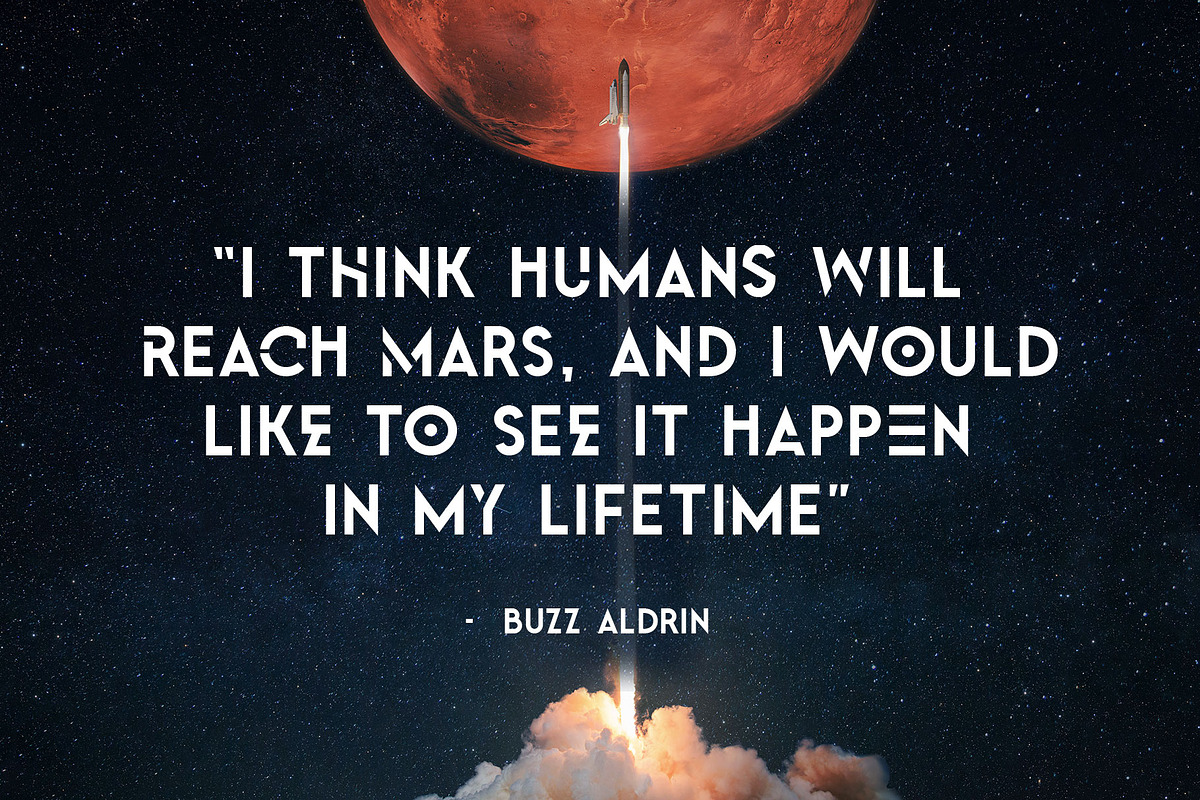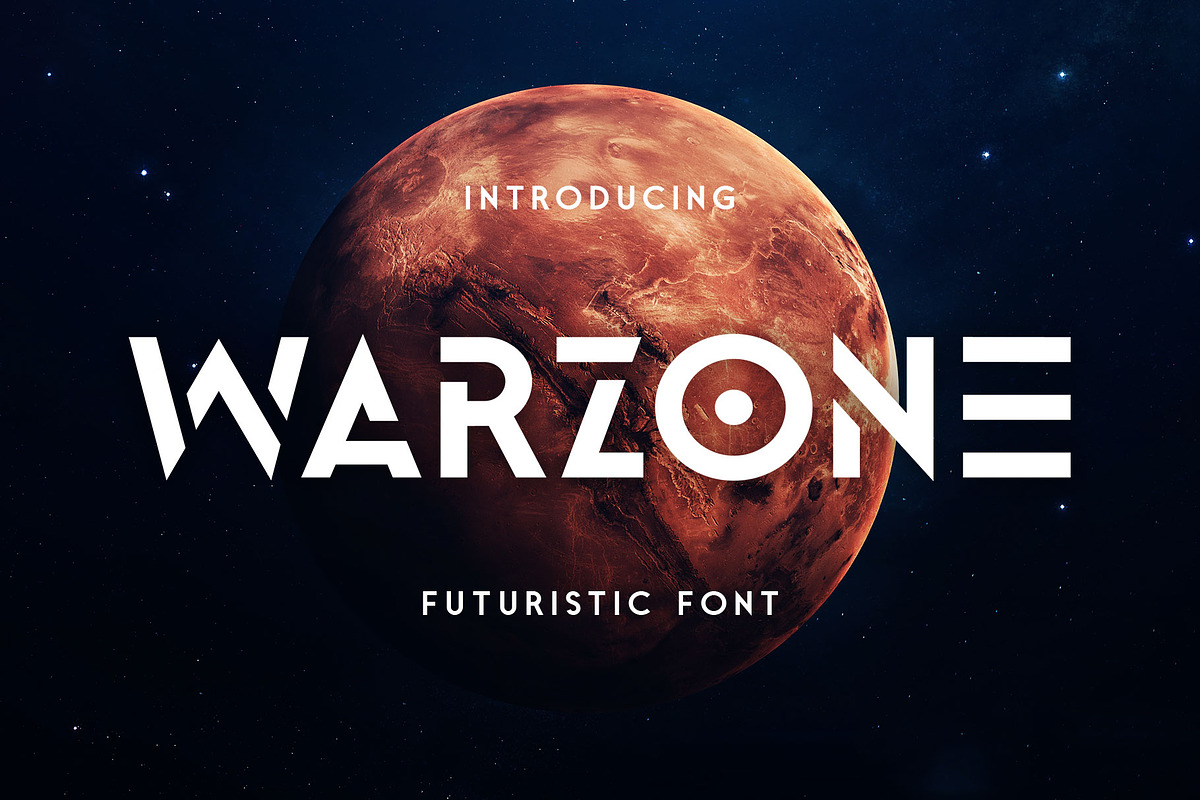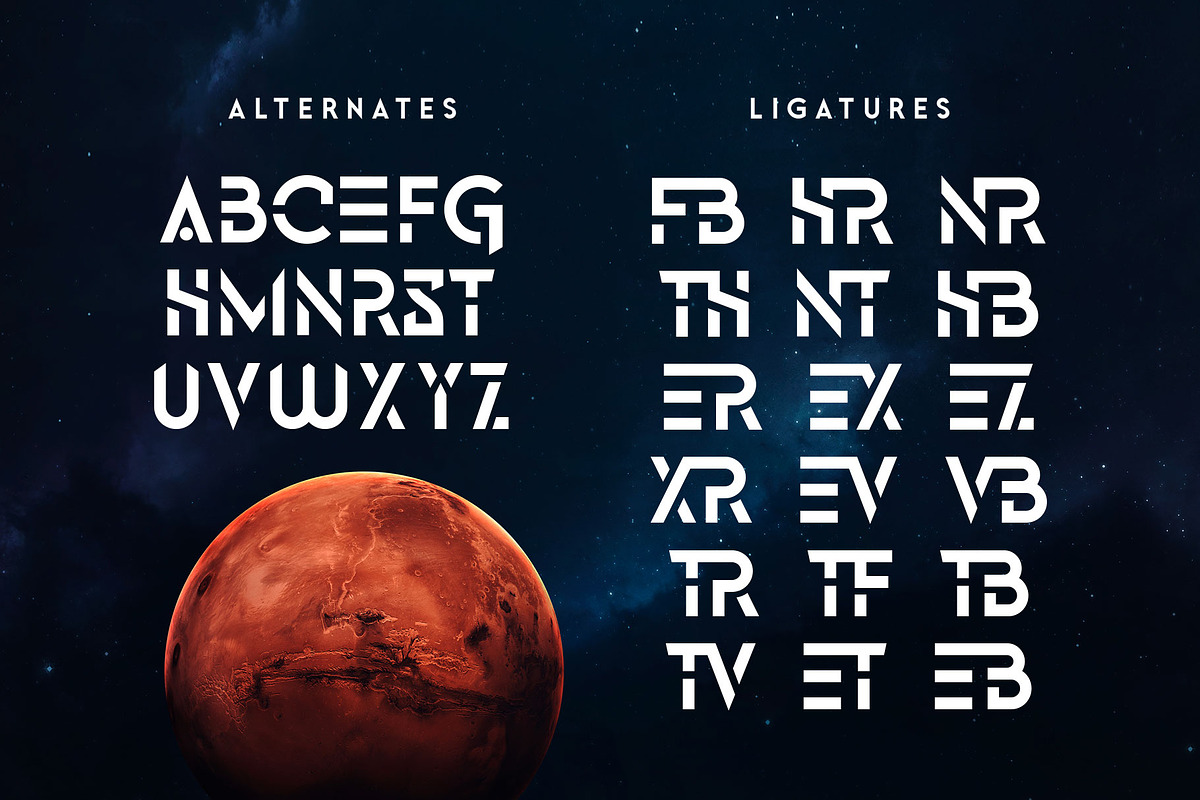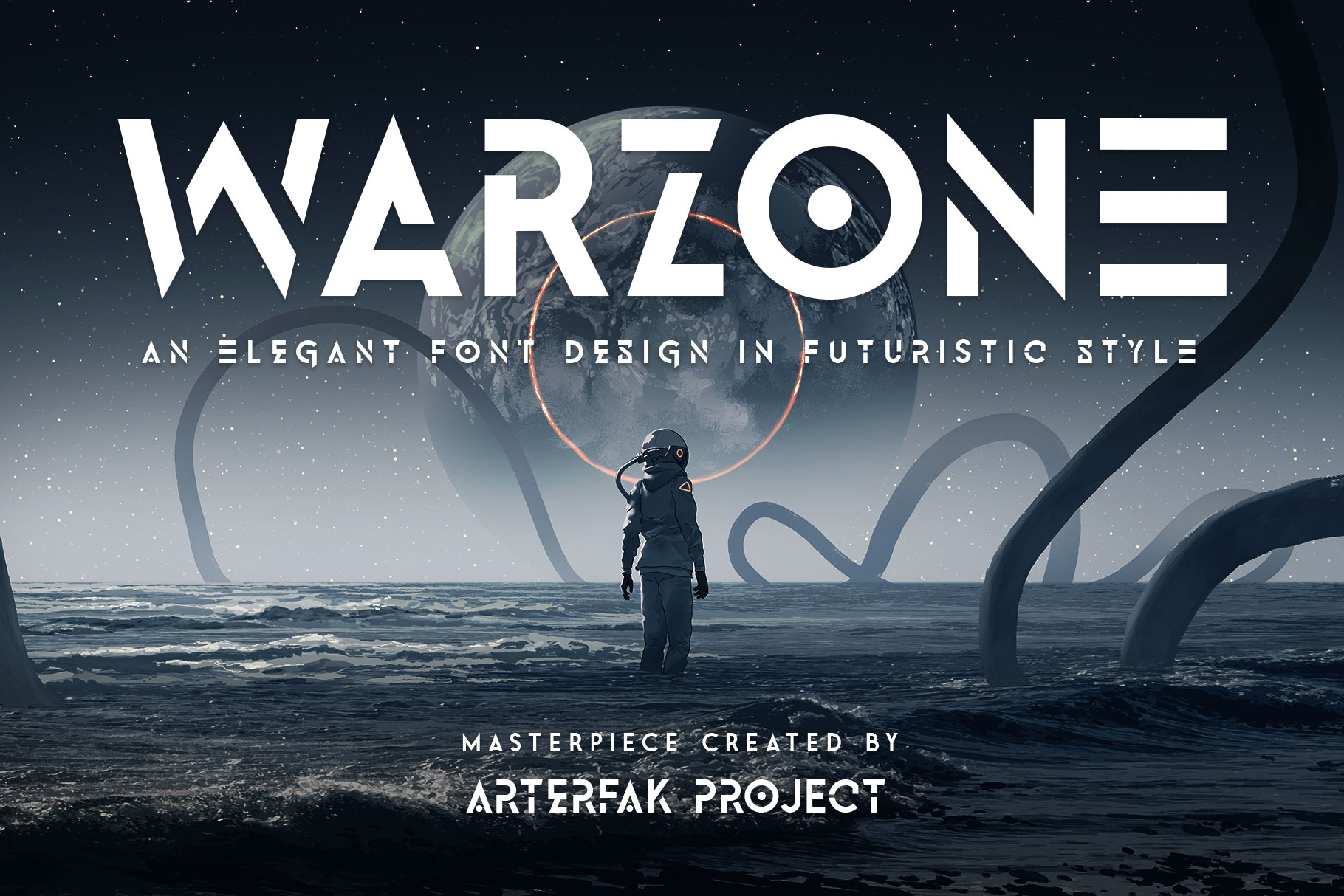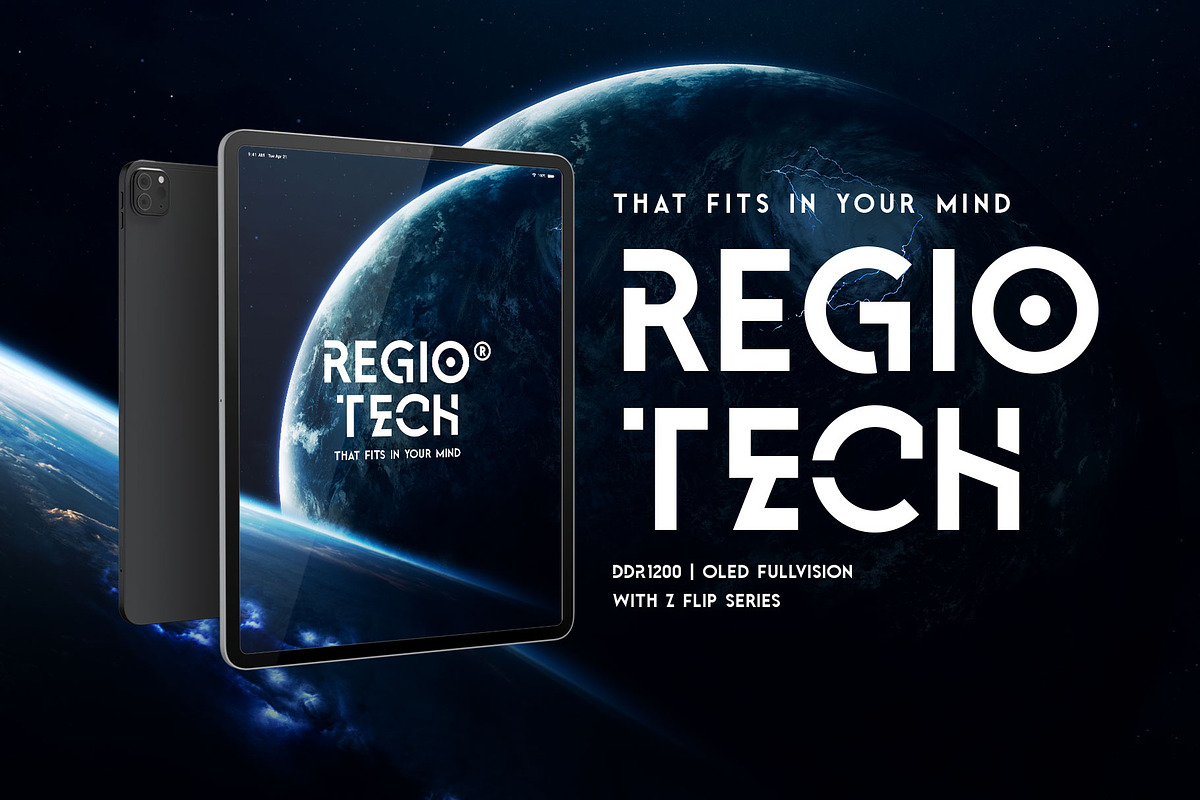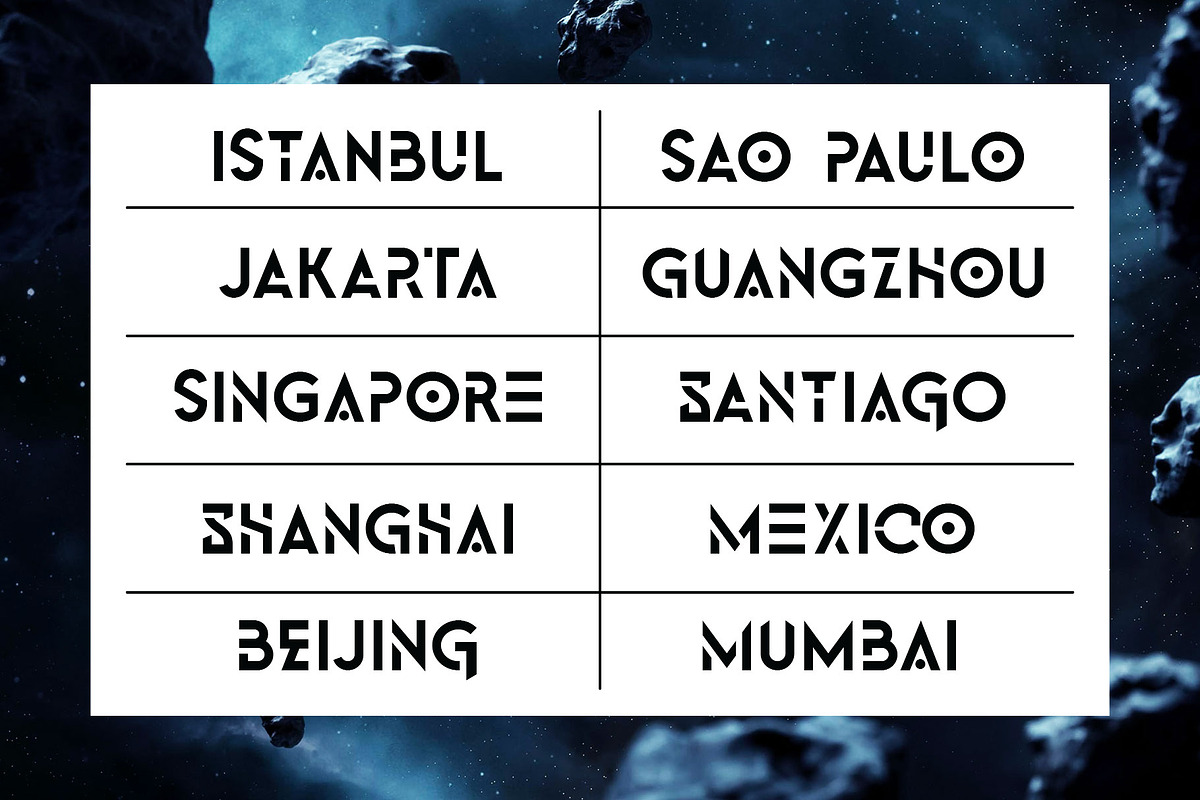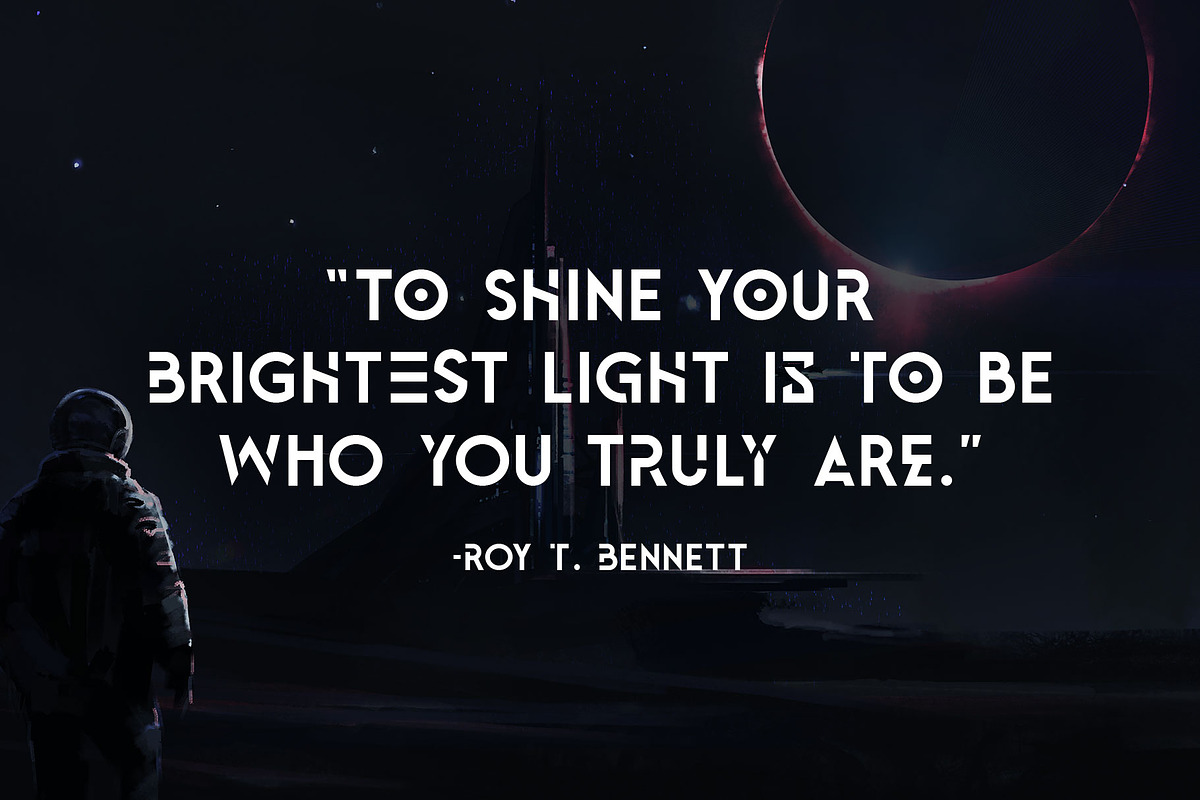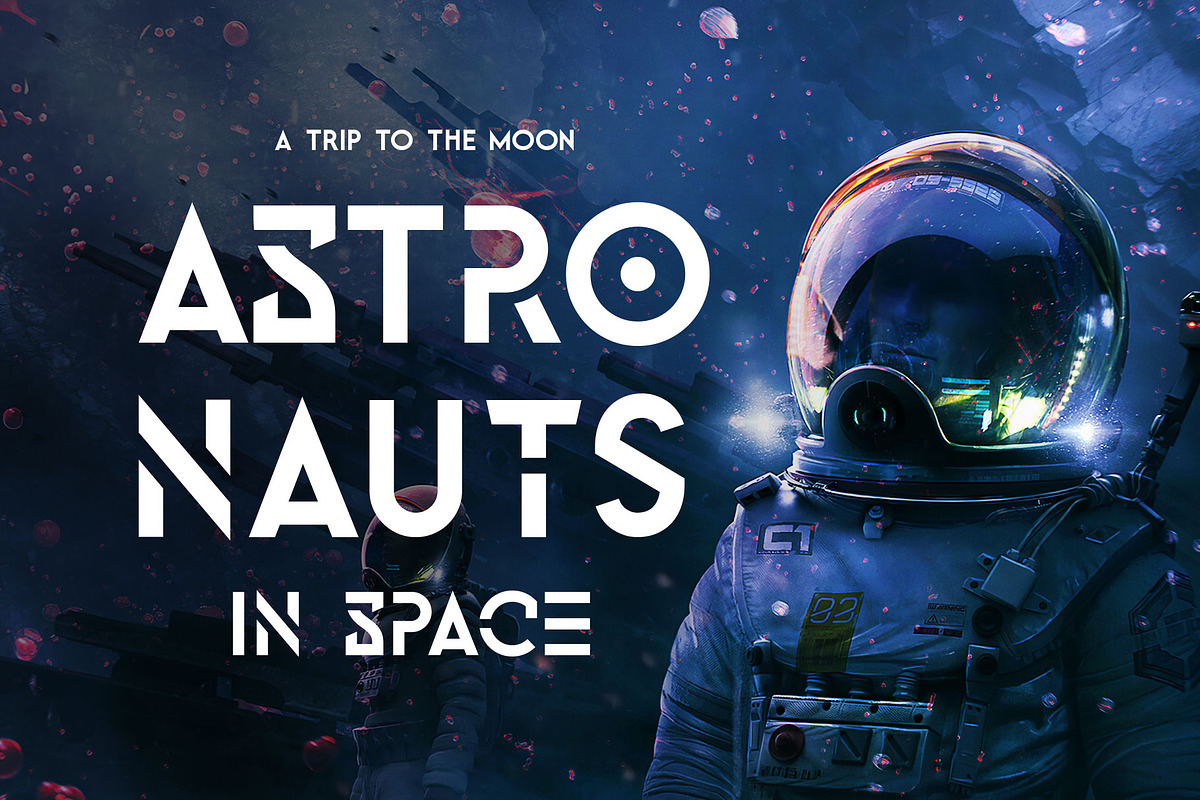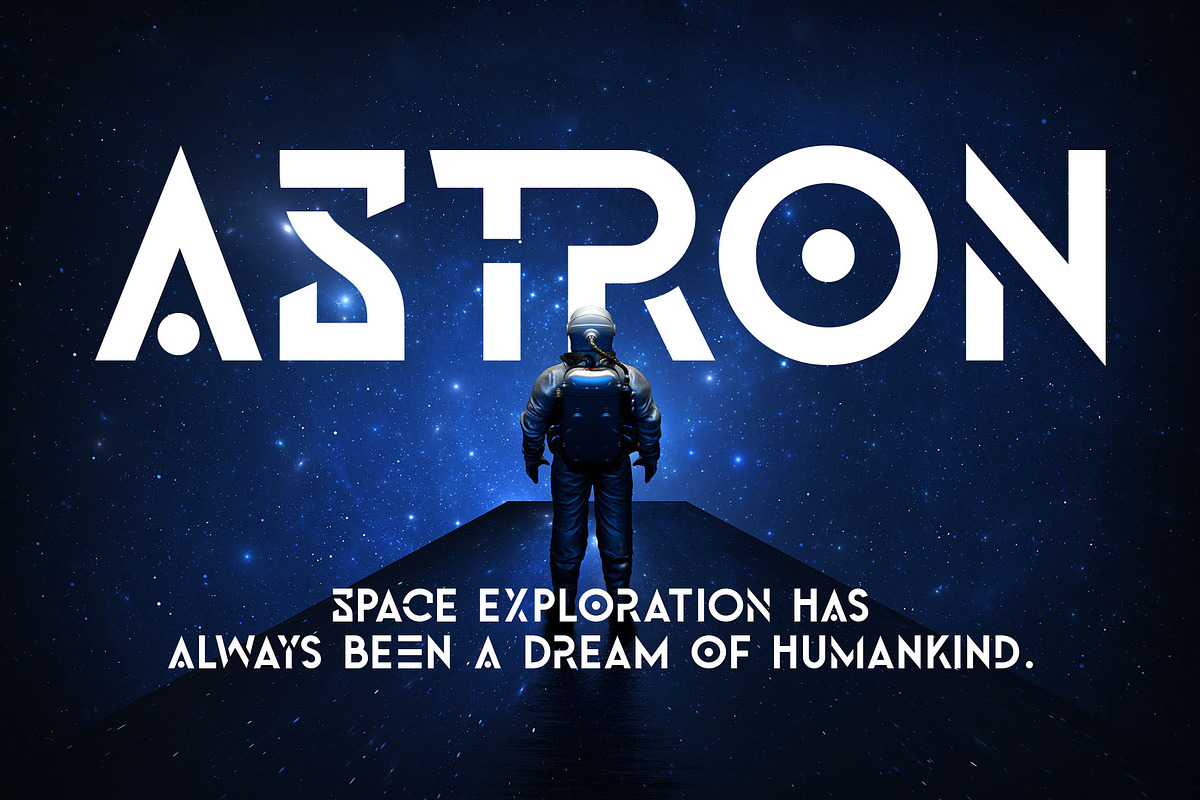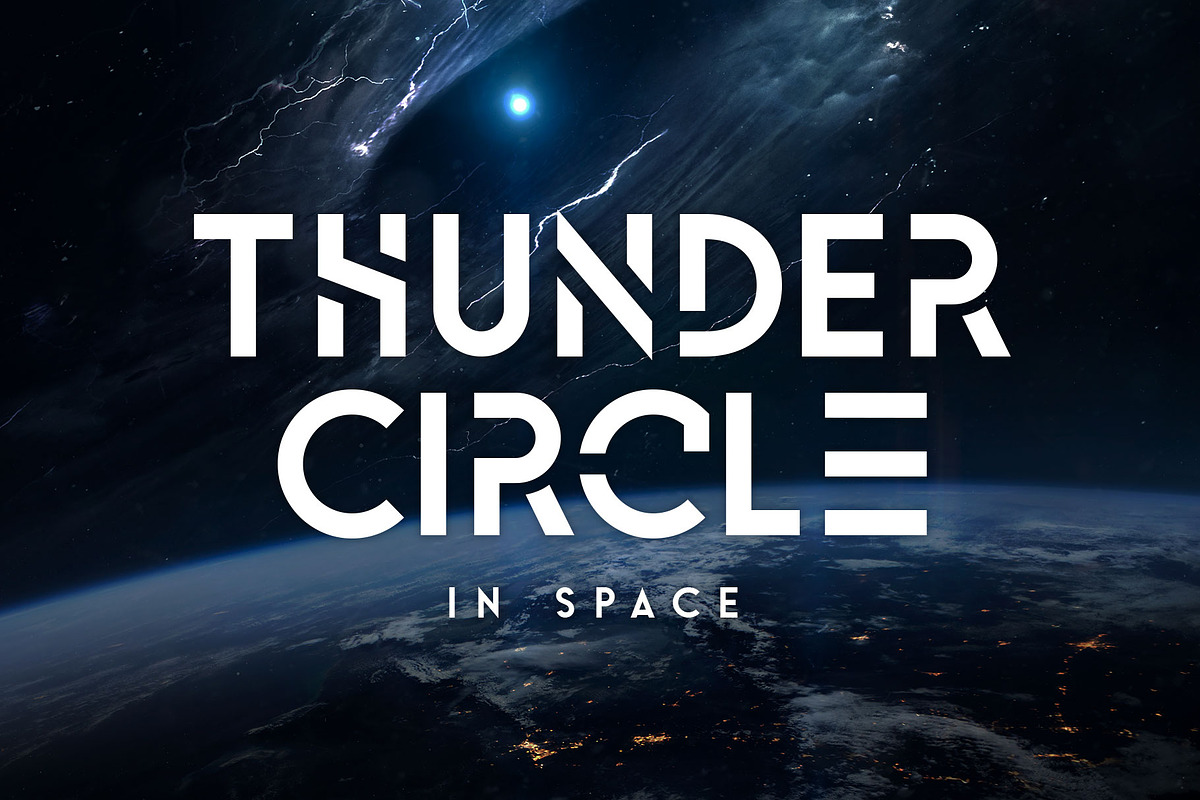
Warzone | Techno Font
Warzone is a minimalist techno font. Based on sans serif design, developed to techno style with the minimalist stencil concept and sharp edges. Quipped with extra alternate characters that give you more variations on your design.
This font has geometric shapes that are perfect for a futuristic theme, techno, digital, sci-fi, and hipster style. Warzone is an all-caps font that has a solid version in the lowercase. A great choice to apply for many purposes.